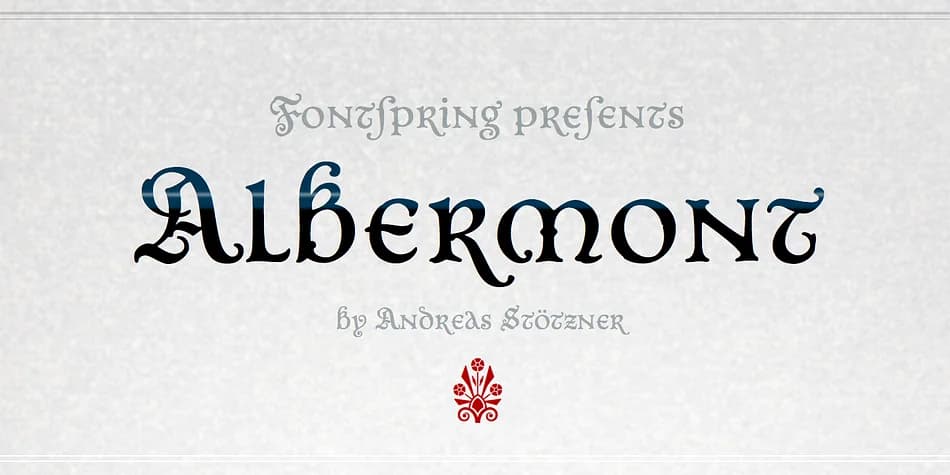
Picture yourself designing a limited-edition gothic novel, hunting for typeface that bridges theatrical elegance with darkly dramatic flair. Albermont, crafted by Andreas Stötzner, is that unusual intersection. This blackletter face pairs uncial-inspired lowercase letters with sturdy blackletter capitals, creating a hybrid that reads clearly in body text while never shedding its ornate character.
It excels across specialty design work: limited-edition book jackets and fairytale collections, boutique witchcraft and occult packaging for niche retailers, dark-themed wedding invitations, theatrical program covers, and goth event materials. Balanced weight handles headlines confidently, while the open lowercase keeps longer passages accessible rather than dense or visually overwhelming. As a statement headline or supporting text in a collector's edition, Albermont works equally well. That kind of duality matters when you're designing pieces meant to sit on a shelf and capture attention.
- Ornate, Gothic
- Logos, Certificates
- medieval themes, band merch, and tattoo lettering
- a clean sans-serif for body text
Albermont Font is a blackletter font that shines as a display or heading face. Pair it with a clean serif or sans-serif font for body text — the contrast creates a clear hierarchy while the two styles stay balanced and easy to read.